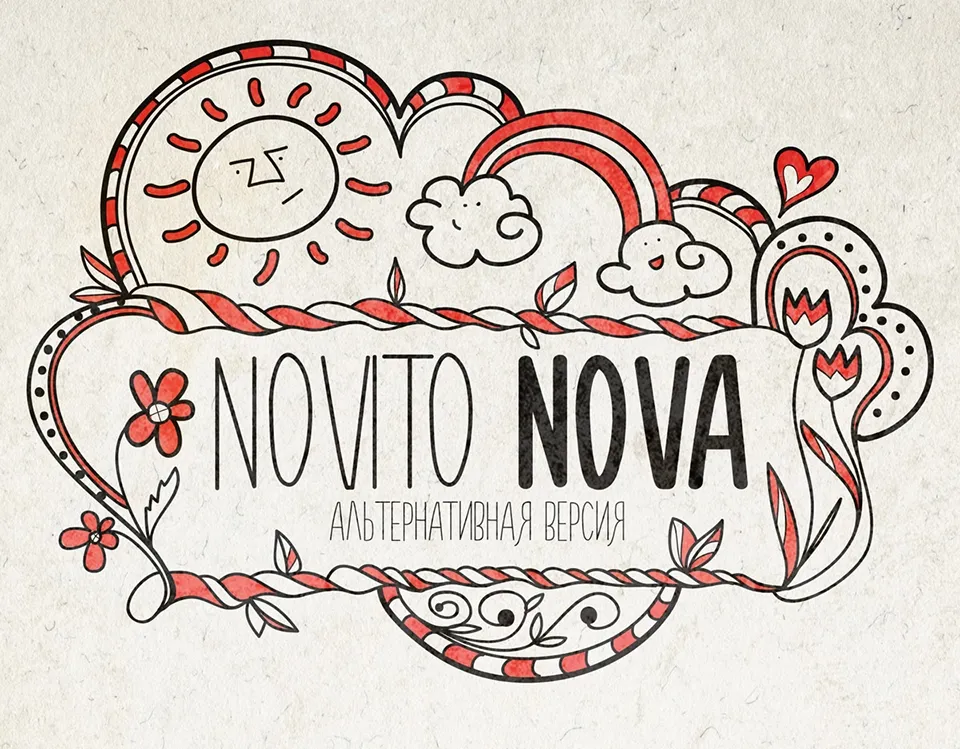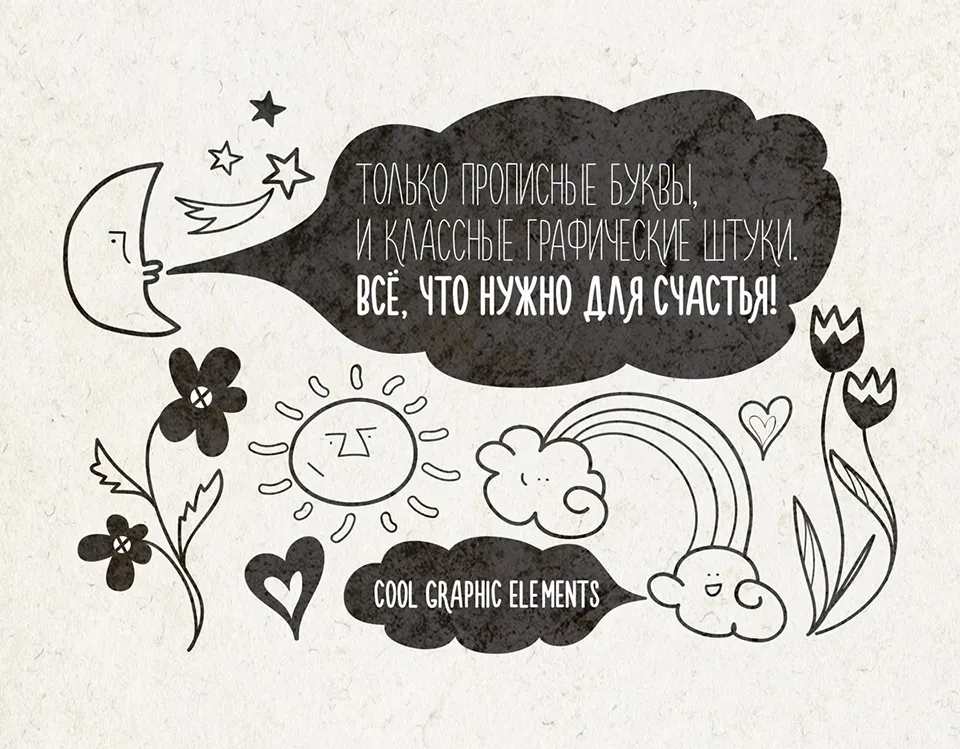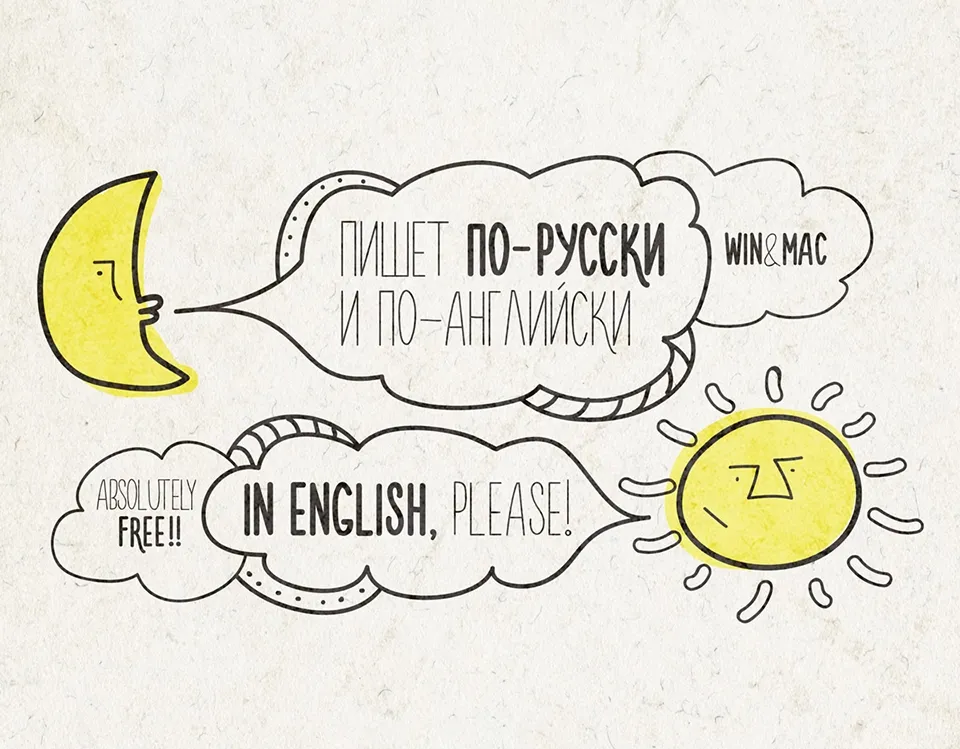
Novito Nova Font
Novito Nova Font is a simple and lovely handwritten font available in two weights: Regular and Thin. It features all caps letters, numbers, punctuation, and supports both Latin and Cyrillic scripts. Perfect for everyday designs, illustrations, notes, quotes, social media, and more, Novito Nova brings a friendly and decorative touch to your creative projects.